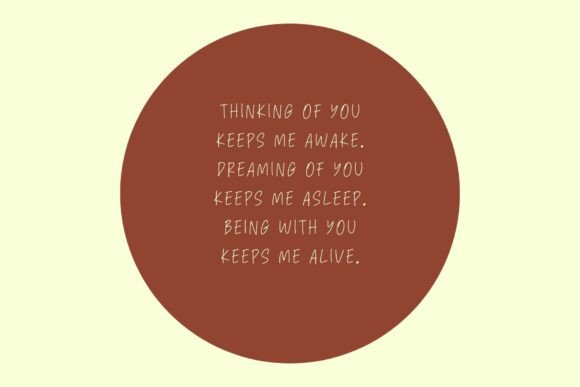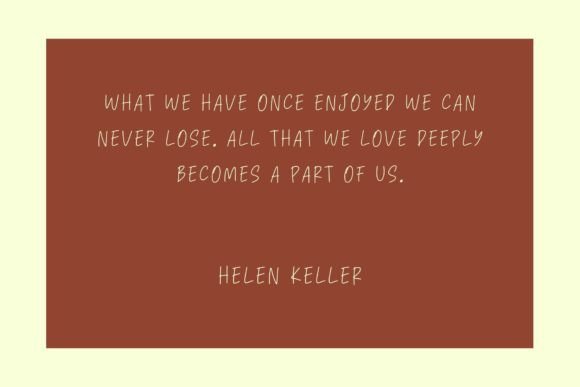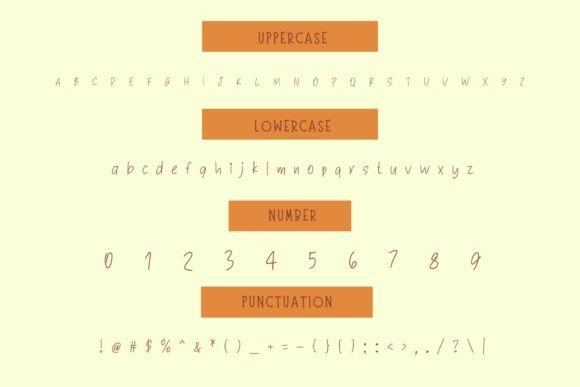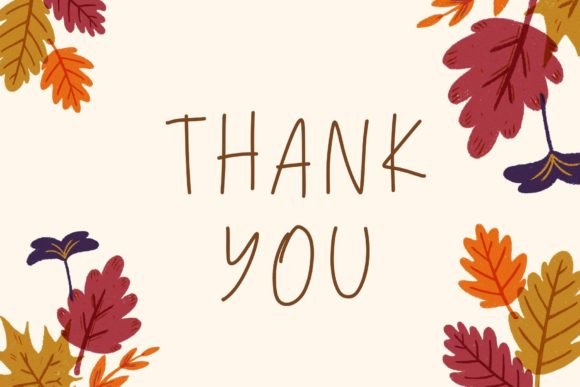
Fallon Font: The Perfect Handwritten Font for Your Creative Projects
Are you looking for a font that can add a touch of playfulness and authenticity to your designs? Look no further than Fallon Font! This cute handwritten font is perfect for a wide range of projects, from blog posts and logos to branding, ads, invitations, greeting cards, planners, photo albums, decorations, and more.
What Makes Fallon Font So Special?
Fallon Font is a unique and charming handwritten font that embodies the spirit of creativity and fun. Its playful and authentic feel makes it perfect for designers and crafters who want to add a personal touch to their work. With Fallon Font, you can create designs that are both visually appealing and engaging.
Uses for Fallon Font
Fallon Font is a versatile font that can be used for a wide range of projects, including:
- Blog Posts: Add a personal touch to your blog posts with Fallon Font. It’s perfect for headings, subheadings, and even body text.
- Logos and Branding: Create a unique and memorable logo for your brand with Fallon Font. Its playful feel makes it perfect for businesses that want to stand out.
- Ads: Make your ads more engaging with Fallon Font. Its cute and charming feel is sure to grab the attention of your target audience.
- Invitations and Greeting Cards: Create beautiful and personalized invitations and greeting cards with Fallon Font. It’s perfect for special occasions like birthdays, weddings, and holidays.
- Planners and Photo Albums: Add a touch of personality to your planners and photo albums with Fallon Font. It’s perfect for creating custom designs that are both functional and visually appealing.
- Decorations: Use Fallon Font to create beautiful decorations for your home or office. It’s perfect for signs, banners, and other DIY projects.
Why Choose Fallon Font?
There are many reasons why Fallon Font is the perfect choice for your creative projects. Here are just a few:
- Unique and Charming: Fallon Font has a unique and charming feel that sets it apart from other fonts.
- Playful and Authentic: Fallon Font embodies the spirit of playfulness and authenticity, making it perfect for designers and crafters who want to add a personal touch to their work.
- Versatile: Fallon Font can be used for a wide range of projects, from blog posts and logos to branding, ads, invitations, and more.
- Easy to Read: Fallon Font is easy to read, making it perfect for body text and other applications where readability is important.
Tips for Using Fallon Font
Here are a few tips for using Fallon Font in your designs:
- Use it for Headings: Fallon Font is perfect for headings and subheadings. Use it to add a touch of personality to your designs.
- Mix it with Other Fonts: Fallon Font can be paired with other fonts to create a unique and visually appealing design.
- Experiment with Colors: Fallon Font looks great in a variety of colors. Experiment with different colors to find the one that works best for your design.
Fallon Font is a cute and charming handwritten font that is perfect for designers and crafters who want to add a personal touch to their work. Its playful and authentic feel makes it perfect for a wide range of projects, from blog posts and logos to branding, ads, invitations, and more. With Fallon Font, you can create designs that are both visually appealing and engaging. So why wait? Add Fallon Font to your designs today and enjoy the results!